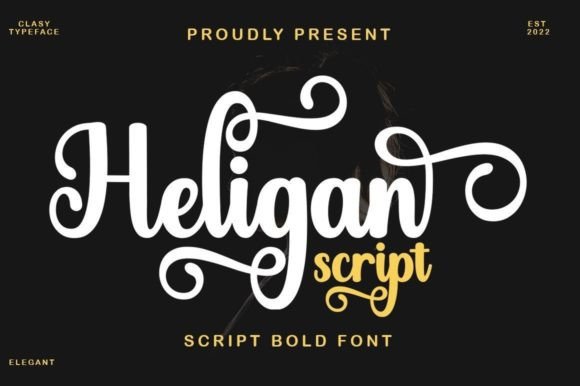
Introducing Heligan Script Font - the ultimate solution to all your design needs! Created by the talented mr.johncreative.co, this font boasts an impressive blend of retro and sophistication, making it a perfect choice for your next design project.
Crafted with utmost care, Heligan Script Font delivers a unique and authentic handwritten feel that's sure to leave a lasting impression on anyone who lays their eyes on it. It's a font that exudes confidence, authenticity, and charm in equal measure, making it perfect for a wide range of crafting ideas.
With its PUA encoding, Heligan Script Font gives you the freedom to access all the glyphs and swashes with ease, allowing you to take your designs to the next level. Whether it's creating stunning cards, designing eye-catching branding or labeling products, this font has got you covered.
But Heligan Script Font is more than just a font - it's an experience. It's the perfect embodiment of creativity and innovation, providing you with the tools to bring your design visions to life. It's a font that's sure to captivate your audience, and leave them with a lasting impression.